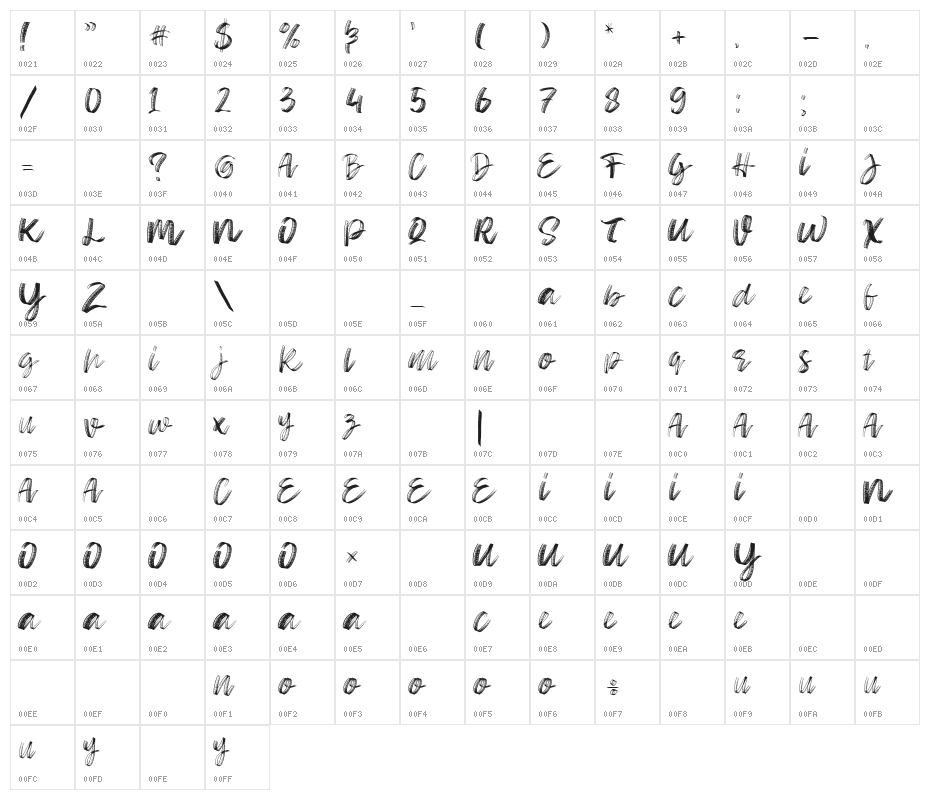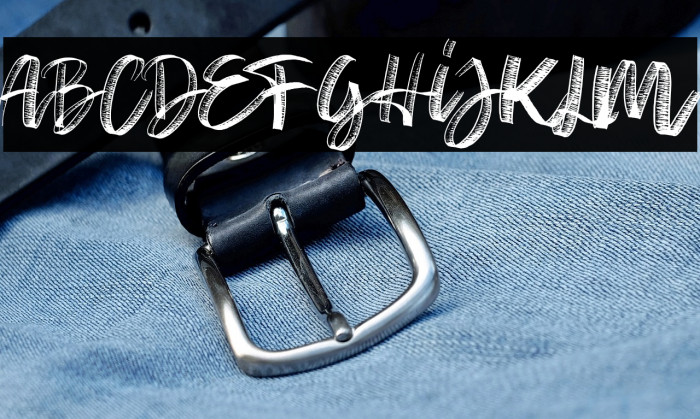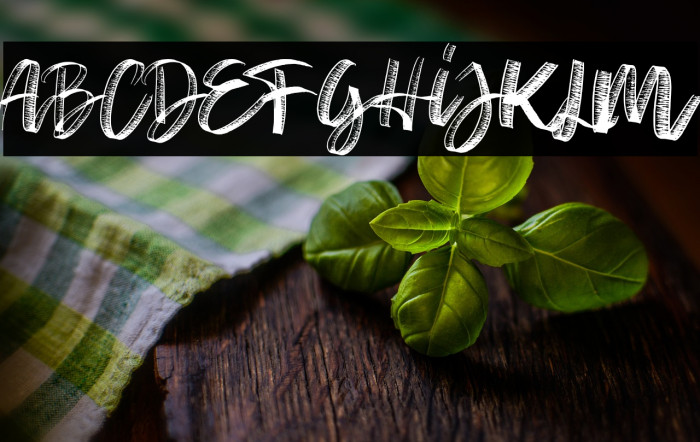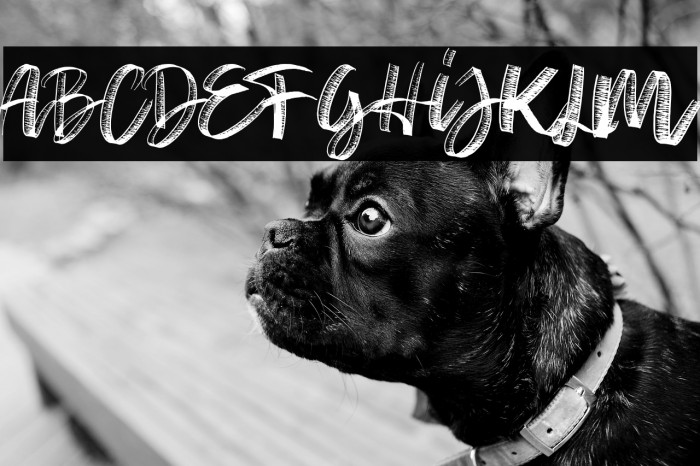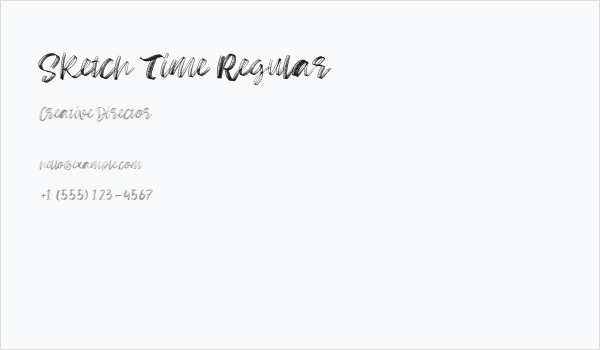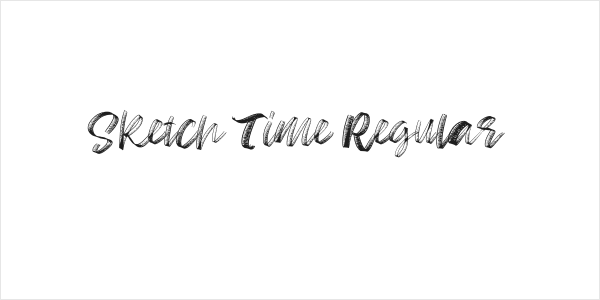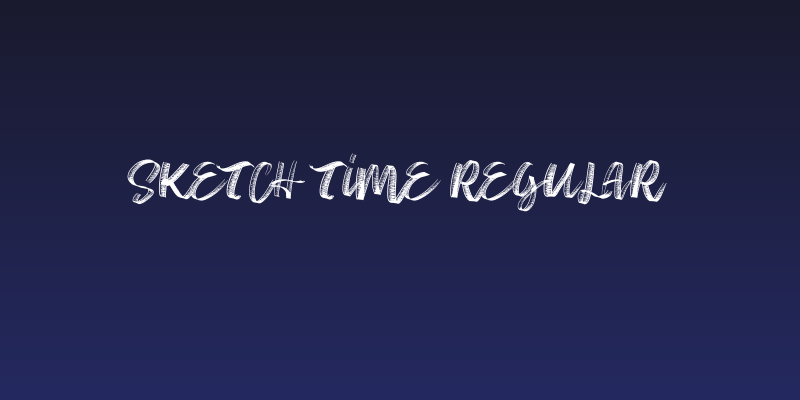
Sketch Time Regular Font
Sketch Time Regular Description
This font exhibits a dynamic and expressive handwritten style, characterized by its bold, sketch-like strokes that convey a sense of movement and energy. The letters are crafted with a playful and artistic flair, featuring varying stroke widths that create a textured, hand-drawn appearance. The uppercase and lowercase letters maintain a consistent style, with each character displaying unique, organic curves and angles. The numerals and special characters complement the alphabet with the same energetic and sketchy design, making the font versatile for creative projects.
| Proposed Projects | Ideal for creative projects such as posters, invitations, branding, and social media graphics where a playful and artistic touch is desired. |